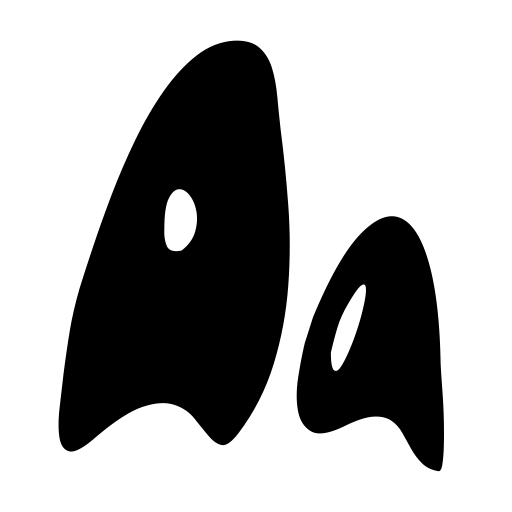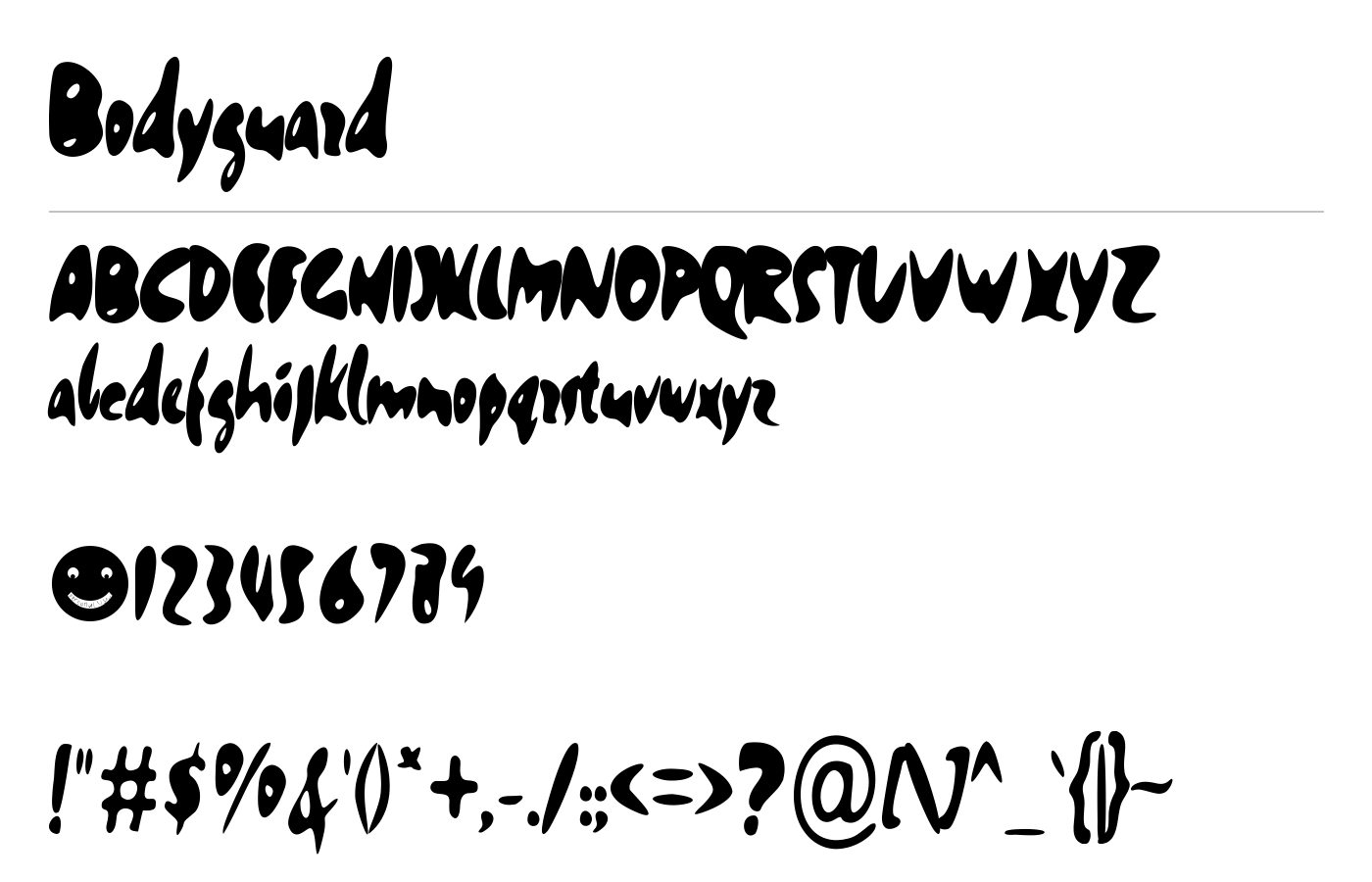
Bodyguard Font is a bold, playful, and highly expressive display typeface with thick, rounded letterforms that feel hand-drawn and lively. Its quirky shapes and irregular rhythm give it a fun and informal personality, making it ideal for creative projects, children's materials, and eye-catching headlines where a unique, approachable vibe is desired. This font works best in standout titles or branding that aims to convey energy and friendliness rather than traditional seriousness.
Bodyguard Font
About Bodyguard Font
| Font family | Bodyguard Font |
| Designer | Rachma |